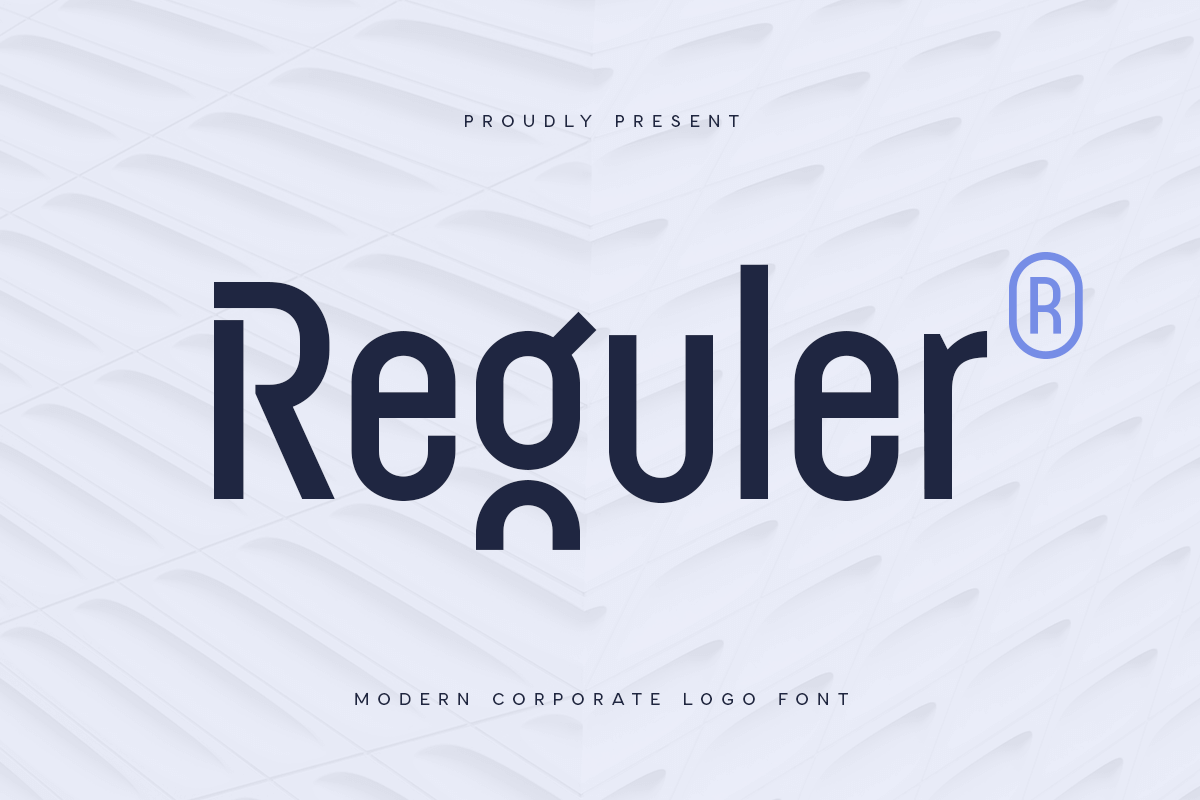
Reguler
-Modern Corporate Logo FontIntroducing Reguler, a font designed to bring a modern and professional touch to your corporate branding. Combining sleek aesthetics with a minimalist approach, Reguler is perfect for creating logos and branding materials that exude sophistication and professionalism.
The Story Behind Reguler:
Reguler was conceived to meet the growing demand for a font that embodies the essence of modern corporate identity. Inspired by the clean lines and elegant simplicity of contemporary design, each character in Reguler is crafted to ensure clarity and impact. The font's minimalist style makes it versatile and suitable for a wide range of corporate applications, from business cards to company websites.
Reguler Font Features:
Modern Design: Sleek and minimalist, ideal for corporate and business use.
Professional Aesthetics: Clean lines and elegant curves that convey sophistication.
Versatile Usage: Perfect for logos, business cards, corporate presentations, and office materials.
High Legibility: Clear and easy to read, ensuring your message is communicated effectively.
Elegant Simplicity: Combines modern style with a professional look.
Inspirational Previews: Includes sample designs to spark your creativity.
Perfect For:
Corporate Branding: Create sleek and professional logos for businesses and companies.
Business Materials: Design elegant business cards, letterheads, and office stationery.
Presentations: Develop polished and modern presentations for corporate meetings and pitches.
Marketing Materials: Enhance brochures, flyers, and advertisements with a touch of elegance.
With Reguler, your corporate designs will achieve a new level of professionalism and style. Whether you're working on branding, marketing materials, or business presentations, Reguler provides the perfect blend of modern design and corporate sophistication. Elevate your brand with Reguler and make a lasting impression in the business world.